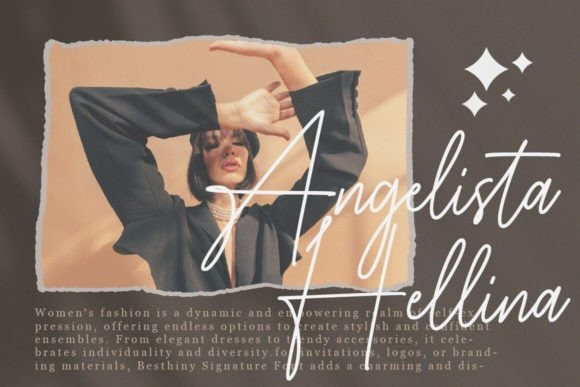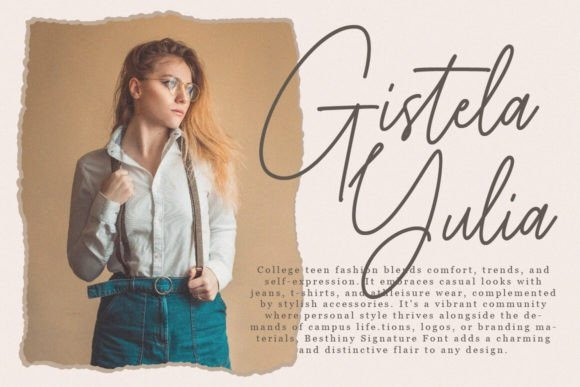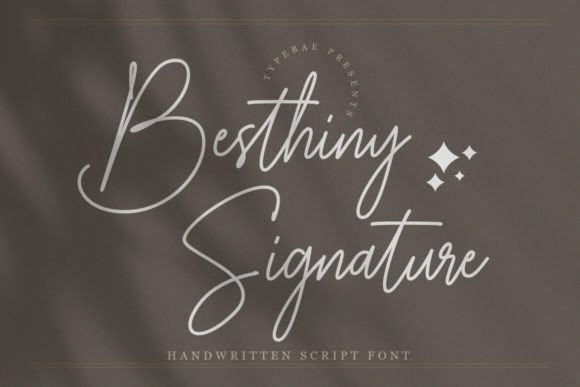
Besthiny Signature Font
Besthiny Signature Font is an elegant and delicate handwritten script font. Its thin strokes and graceful curves create a beautiful and stylish appearance. Whether used for invitations, logos, or branding materials, Besthiny Signature Font adds a charming and distinctive flair to any design.